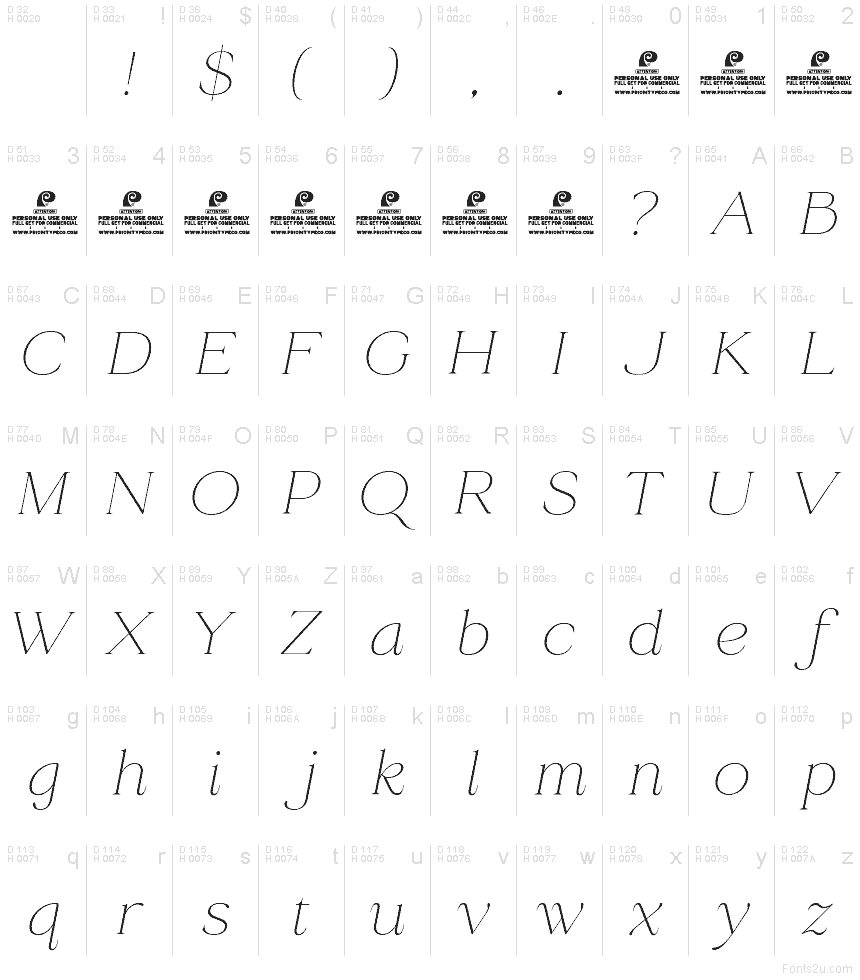
Radiant Charisma DEMO ExtLt Ita
Radiant Charisma ExtLt Ita font is a serif typeface designed by Prioritype Co. The letters present an elegant, professional, and graceful style with a sophisticated presence marked by the italic orientation. The design communicates flowing typography that seamlessly fits into different projects which require an uplifted visual approach and special attention to details.
Integrate this free serif font into branding designs such as logo types, business cards, labels, or product packaging. Some more ideas include website headers or footers as well as book covers and posters that communicate elegance. Magazine covers and editorial setups are the last in the line of compatible projects for Radiant Charisma ExtLt Ita.